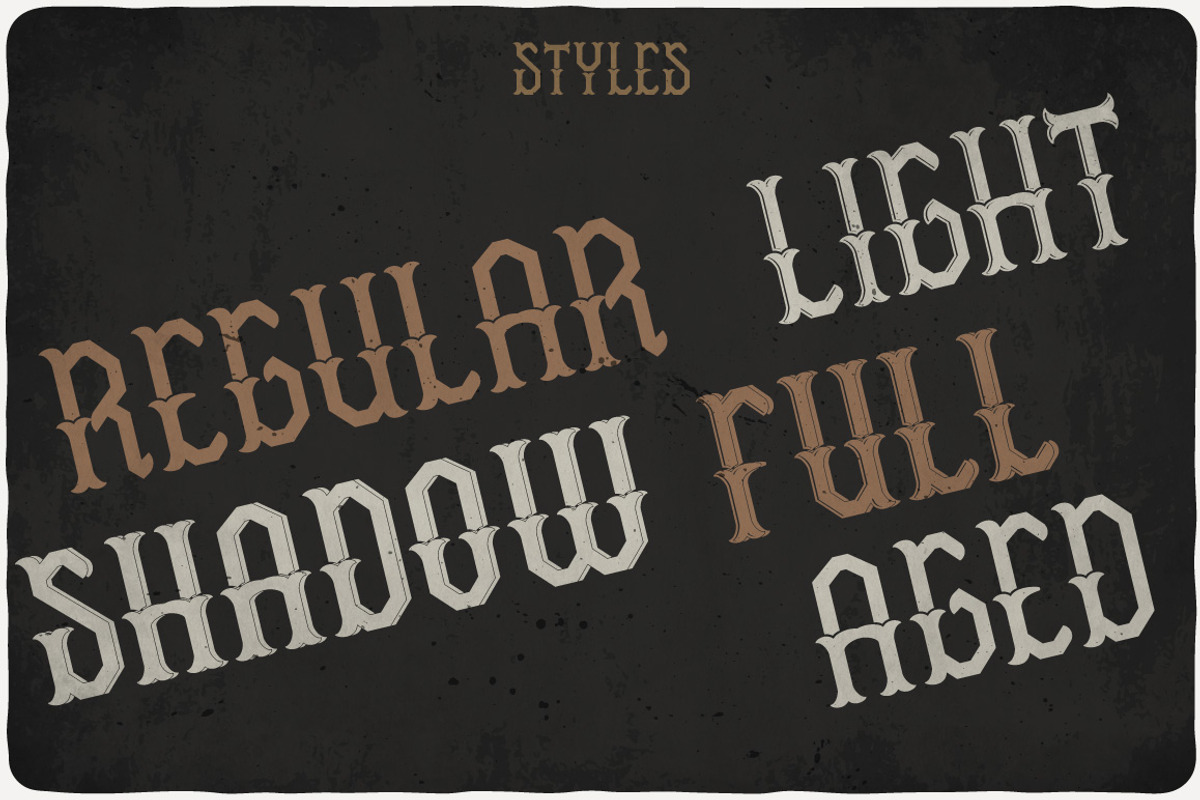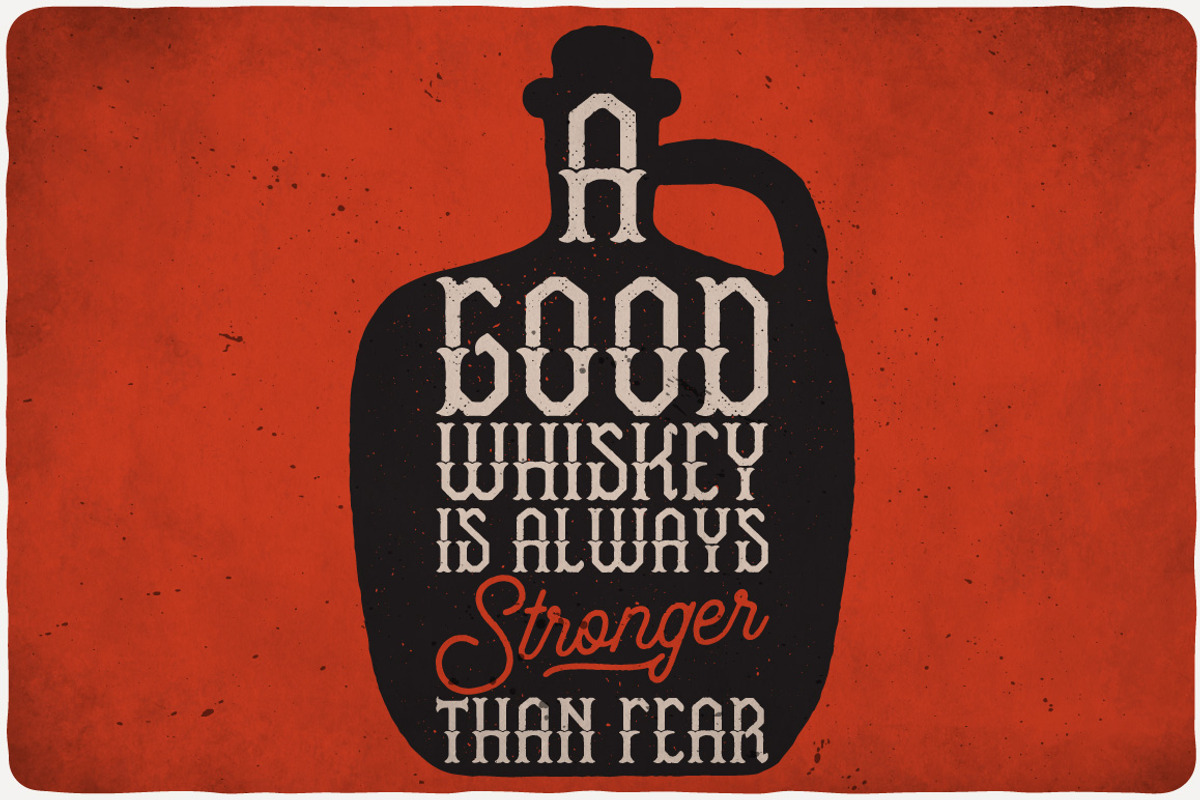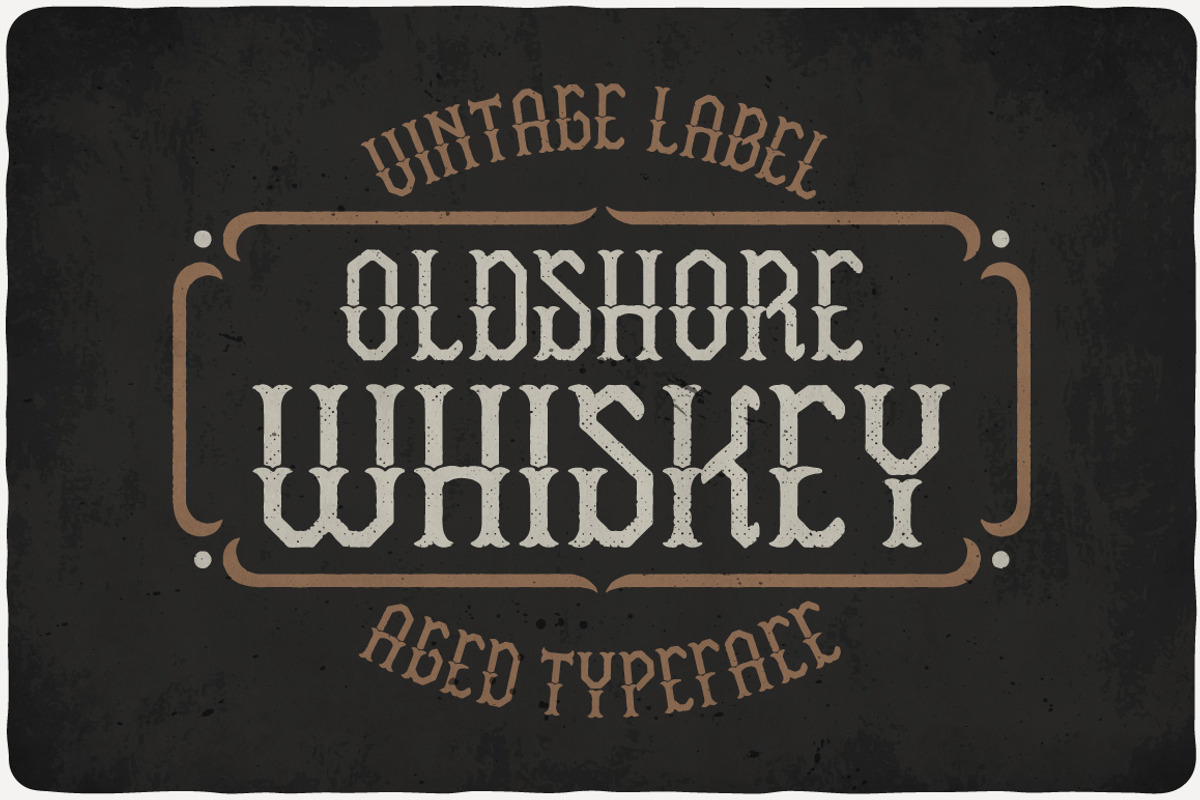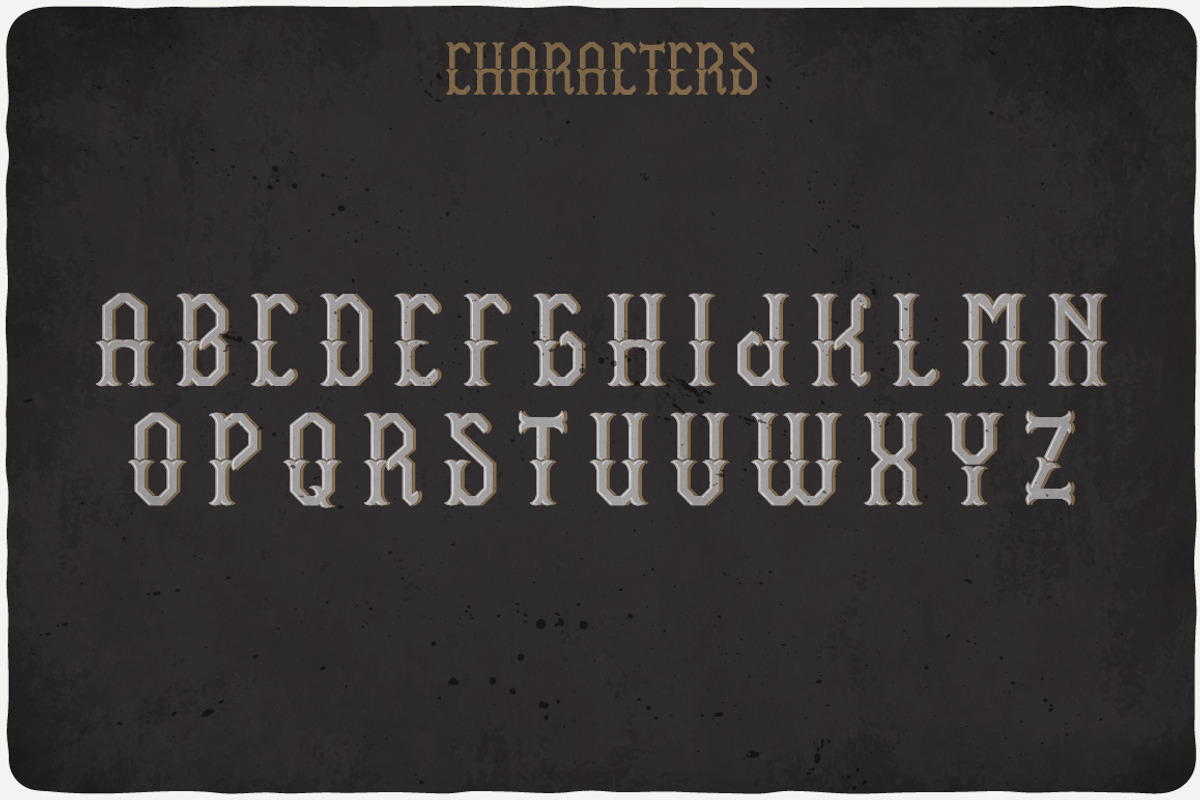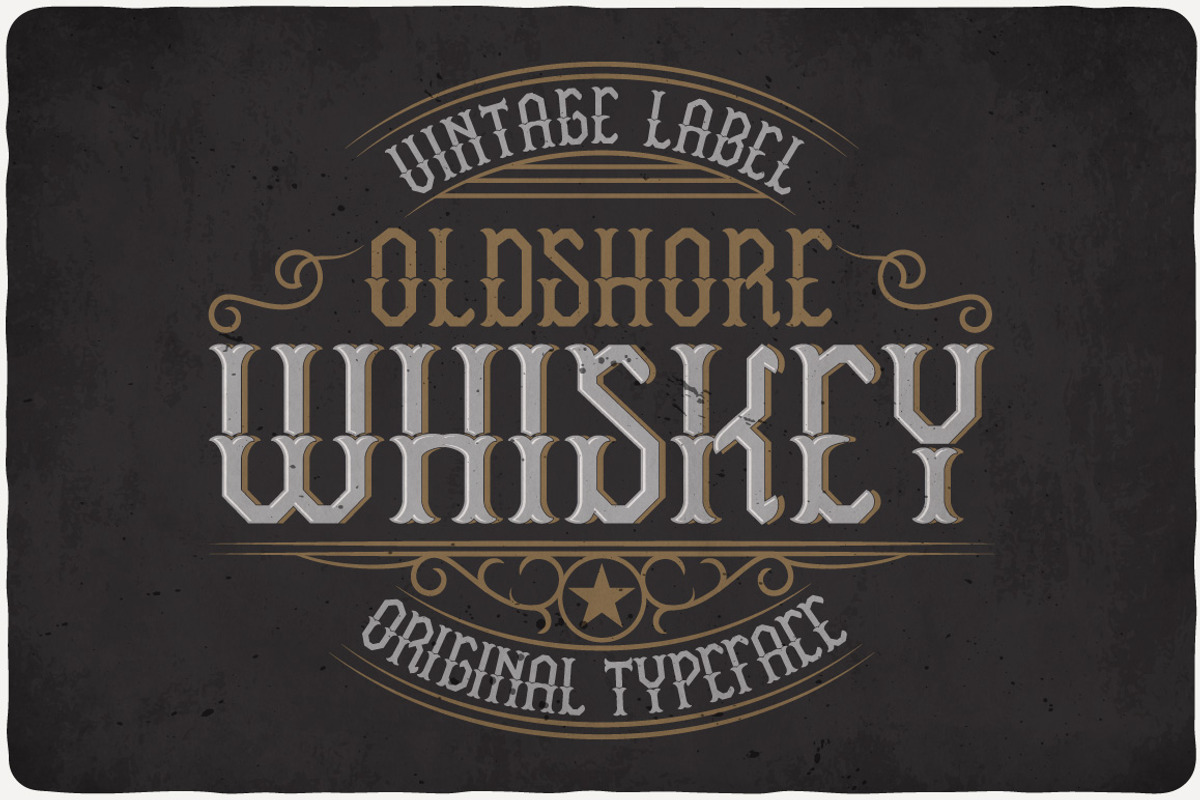
Oldshore Whiskey Typeface
Introducing a vintage look label typeface named "Oldshore Whiskey". It's made in strong and vintage label style. Typeface is good viewed on any labels design.
Why Oldshore Whiskey Typeface is worth a look
Oldshore Whiskey Typeface by VozzyStock fits naturally into Branding, posters, packaging, typography.